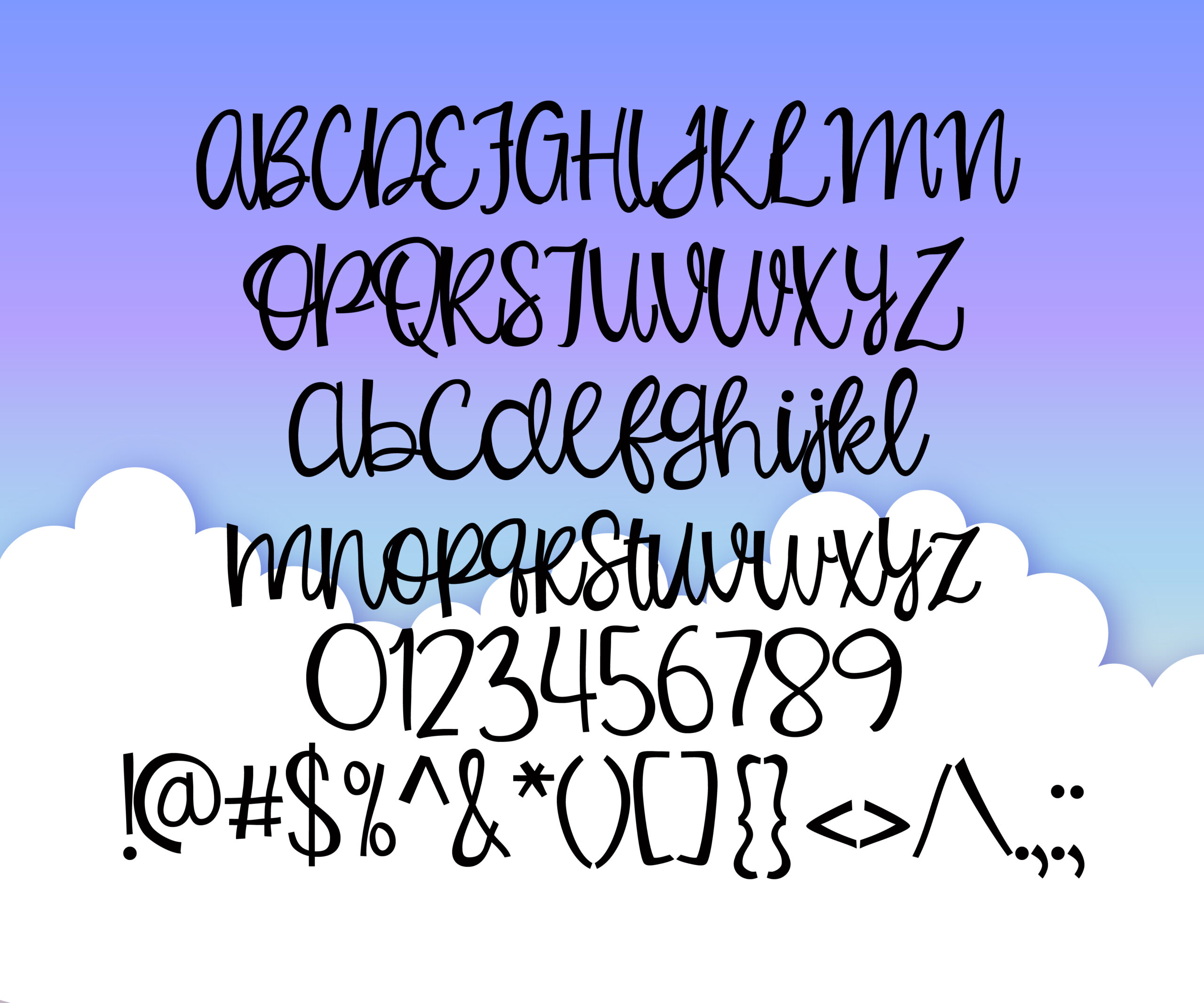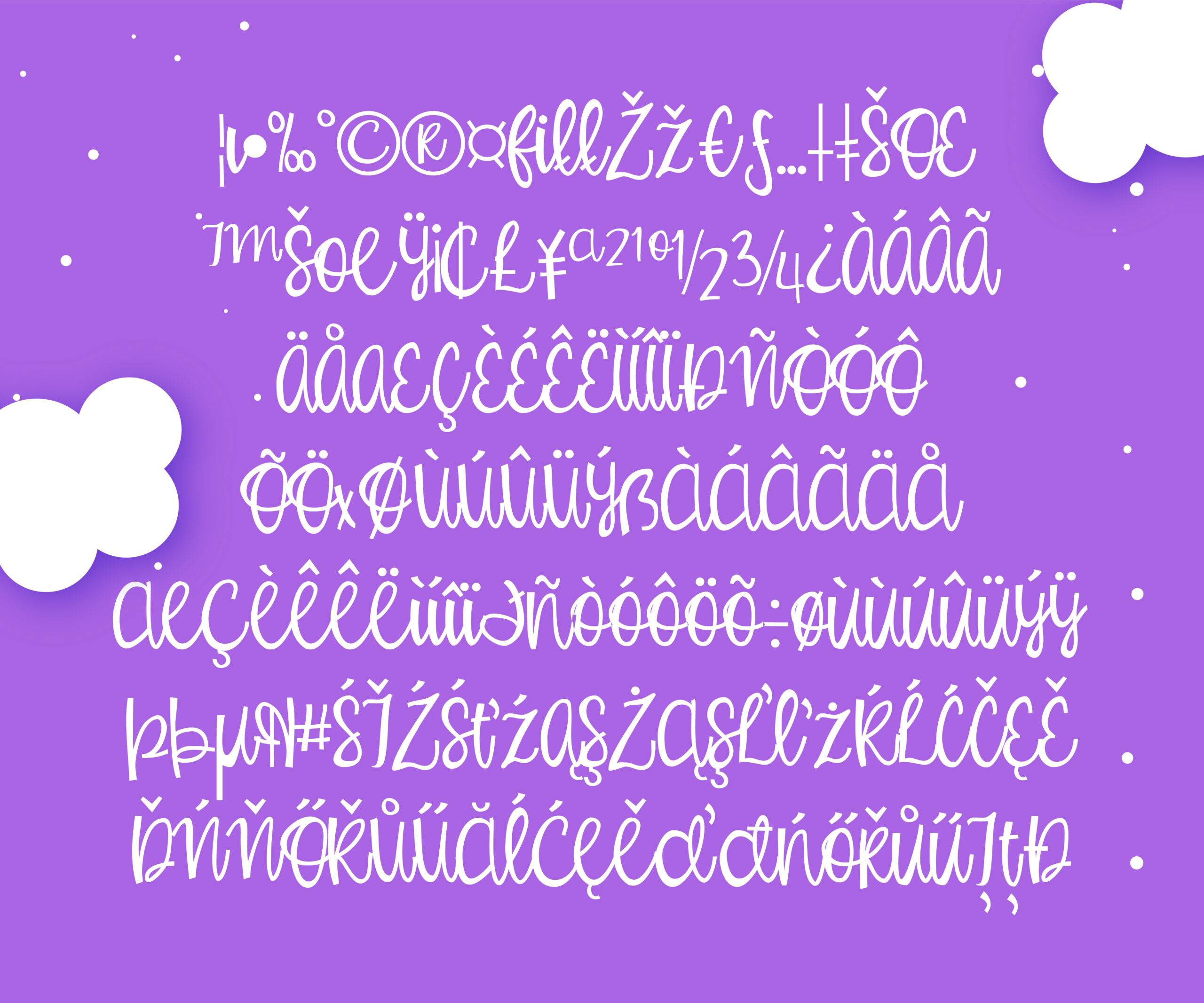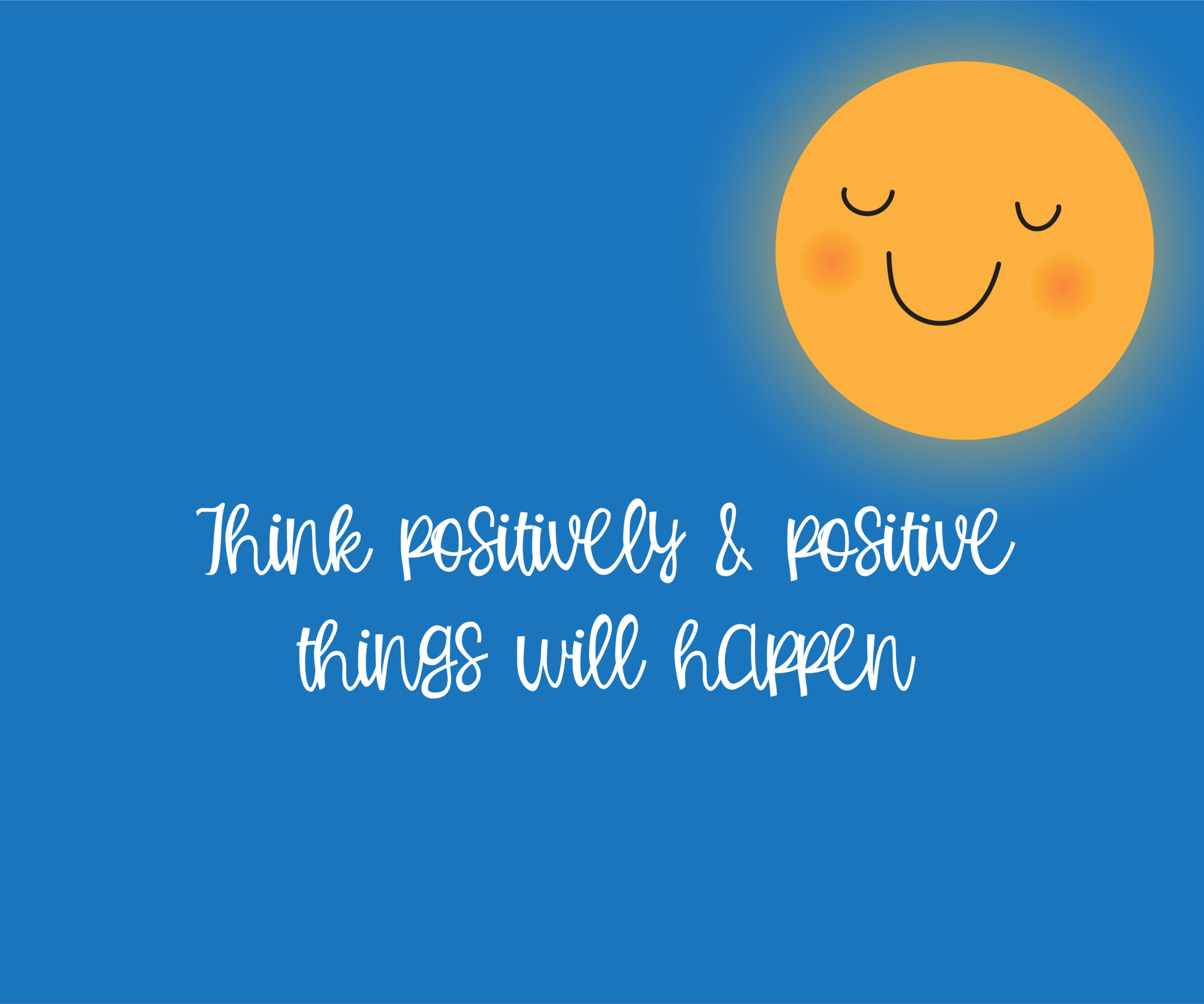
Positively Font
About Positively Font
Positively is a cute hand-written cursive script has a really whimsical feel and no real descenders. This font looks great in a wide range of relaxed and casual designs.